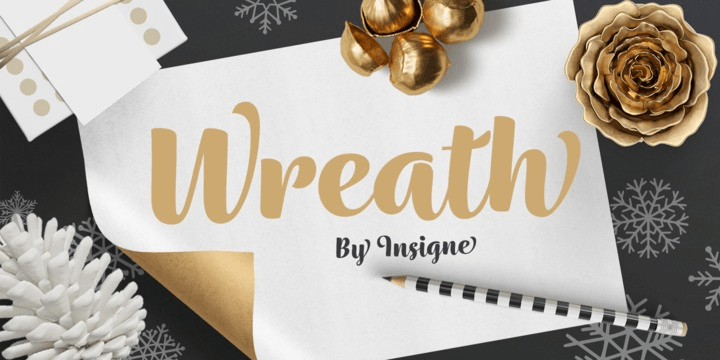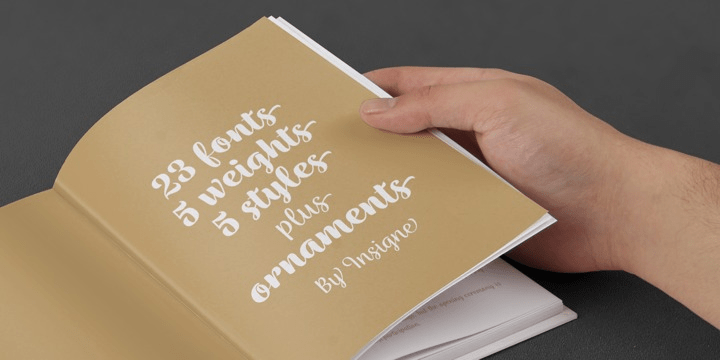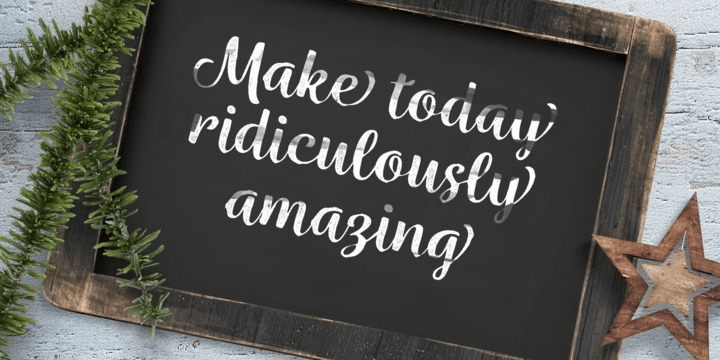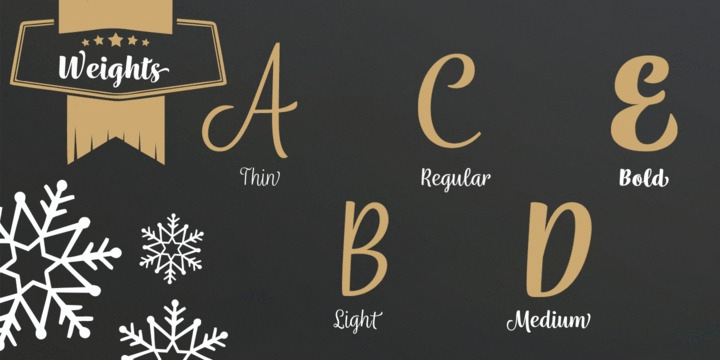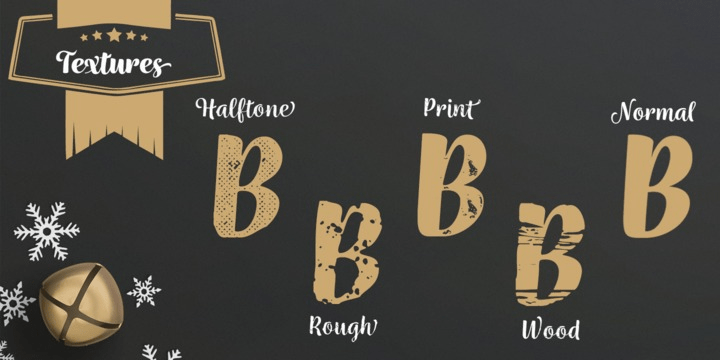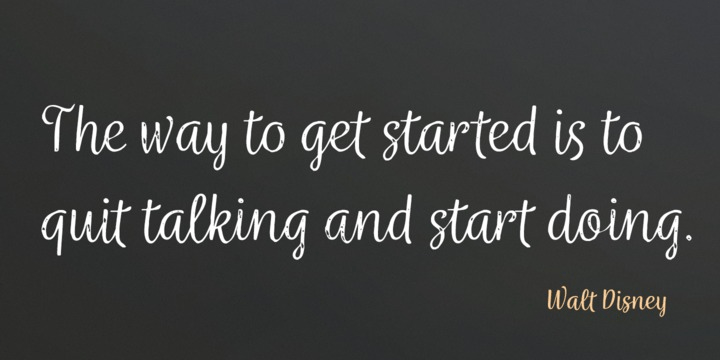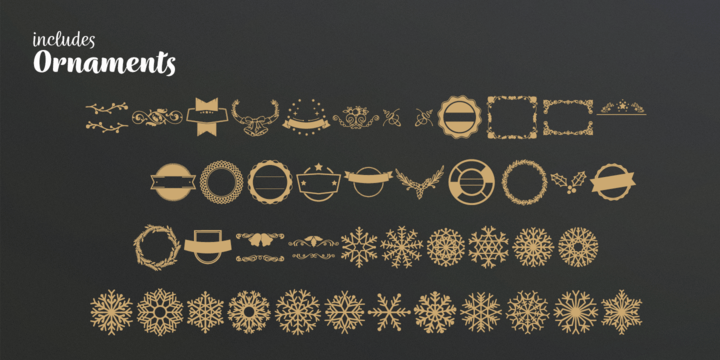
Wreath
Font Family by Insigne
Wreath is a script face drawn with a pointed brush. Designed by the elves of the insigne workshop, its unique forms were created to dress up your gift labels and a wide variety of other holiday collateral.
With five different weights and five different variants that allow for a distressed appearance, Wreath is no Scrooge. Its numerous alternates help to make your designs happy all the way. They allow for varying the ending characters of the lowercase to give your designs an automatic handwritten appearance. In addition, there are ligatures that extend the handwritten appearance and alternate options, including randomized alternates to create a unique appearance every time the font is used. There's over six-hundred fifty glyphs in every font.